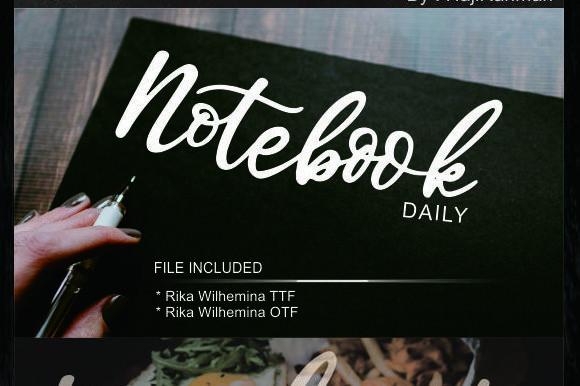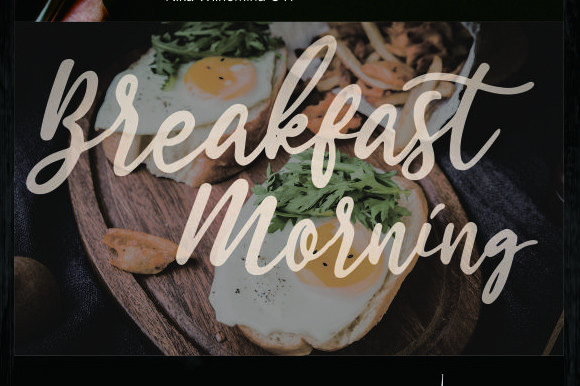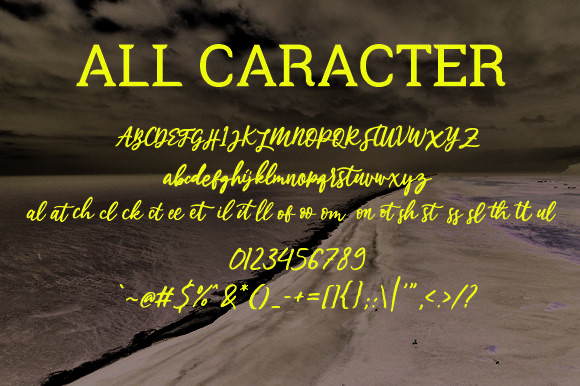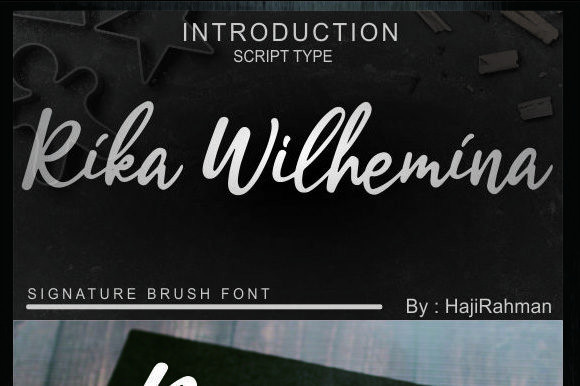
Rika Wilhemina Font
Rika Wilhemina is a beautiful, soft and modern handwriting font. It contains unique ties and alternatives and will add an authentic touch to any design project.